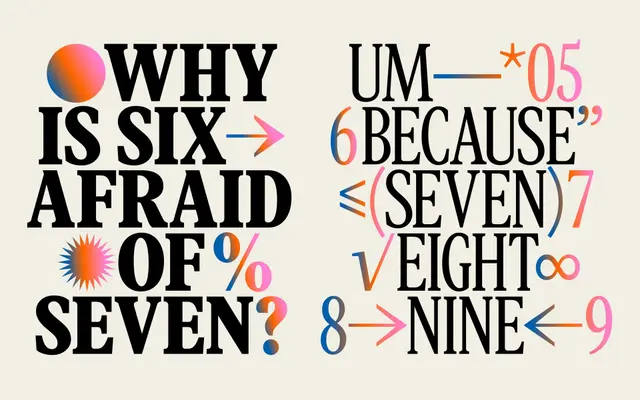
Copernicus New Cond
Labor and Wait · 2024
A uniformly condensed serif family from Labor and Wait, released in beta with six weights running from light to heavy.
Available in six weights numbered 070 through 170, the family was revised from an earlier beta in which the heaviest weight ran wider as a semicondensed; all cuts are now consistently condensed in proportion. Numeral options include lining proportional as default, alongside lining tabular and oldstyle proportional alternates. Coverage spans a broad range of Latin-script languages, from Afrikaans to Welsh, and the final release files will be provided to beta licensees upon completion.
The weight naming convention (070–170) and the page's emphasis on uniform condensed proportions across all weights suggest a contemporary condensed serif, likely in the transitional or rational tradition given the name's astronomical lineage and the structured glyph set.